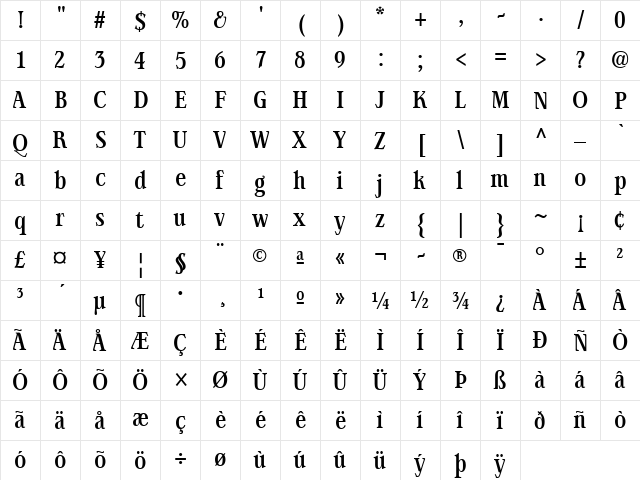
AIAlign Regular
Design Context for AIAlign Typeface
AIAlign offers clean, dependable letterforms without strong stylistic allegiance, making it a practical choice for designers who need flexibility.